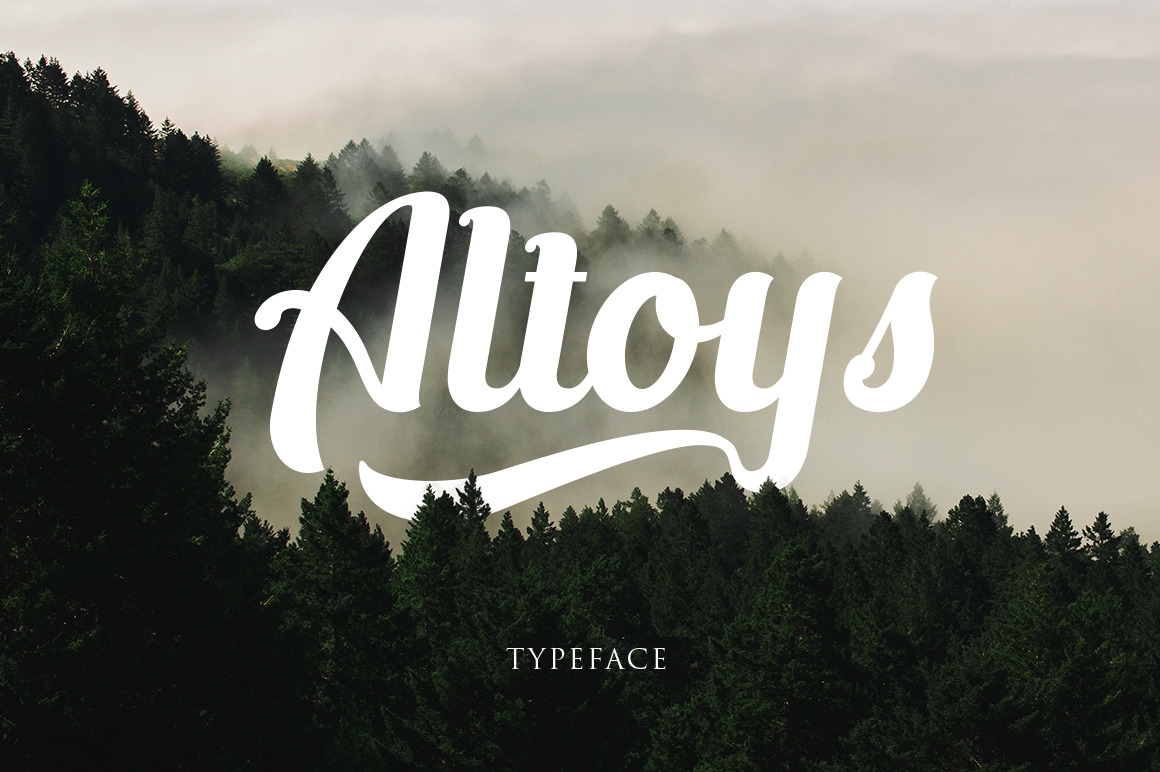
Altoys Typeface
Yihaiii... Altoys Typeface make your font collection to be more varied, because Altoys have a special characters glyphs, gorgeous and curvaceous makes this font is suitable for a your brand name. Very clearly visible from a distance.
- Character uppercase and lowercase
- swash, stylistic alternates, contextual alternates, ligature, discretionary ligature, ornament, ss01 - ss02